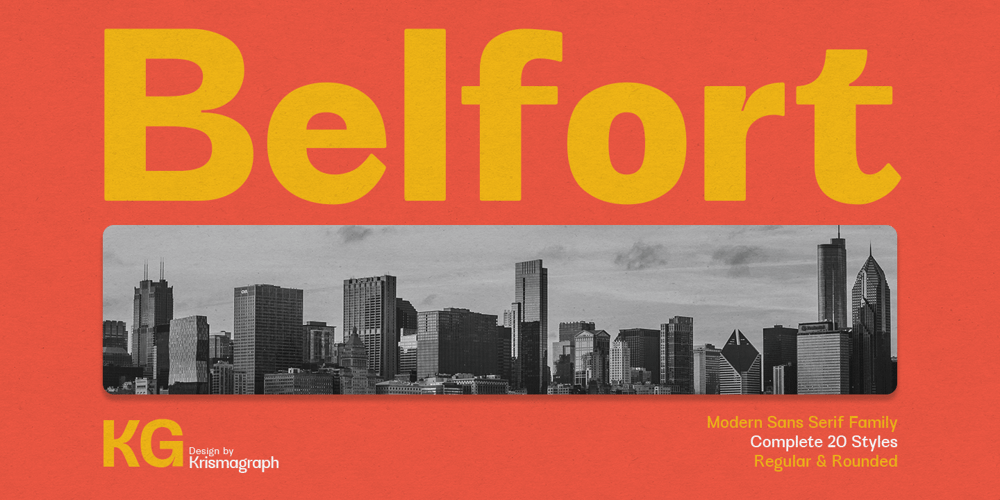
KG Belfort
KG Belfort font
KG Belfort Font Family was designed by Ratna Krismawati and published by Krismagraph. KG Belfort contains 20 styles and family package options. Belfort is a modern sans serif family font with a neo-Grotesk touch, it is a sans serif typeface that tends to be easily accepted by readers, has wide usage possibilities, and shows a simple, bold, and strong personality. The Belfort font contains 2 basic shapes: upright and round. Each has 10 different weights (Thin, Extra Light, Light, Regular, Medium, Semibold, Thick, Extrabold, Black, and Heavy). with ligatures and alternating in several letters. and is equipped with a multilingual accent.